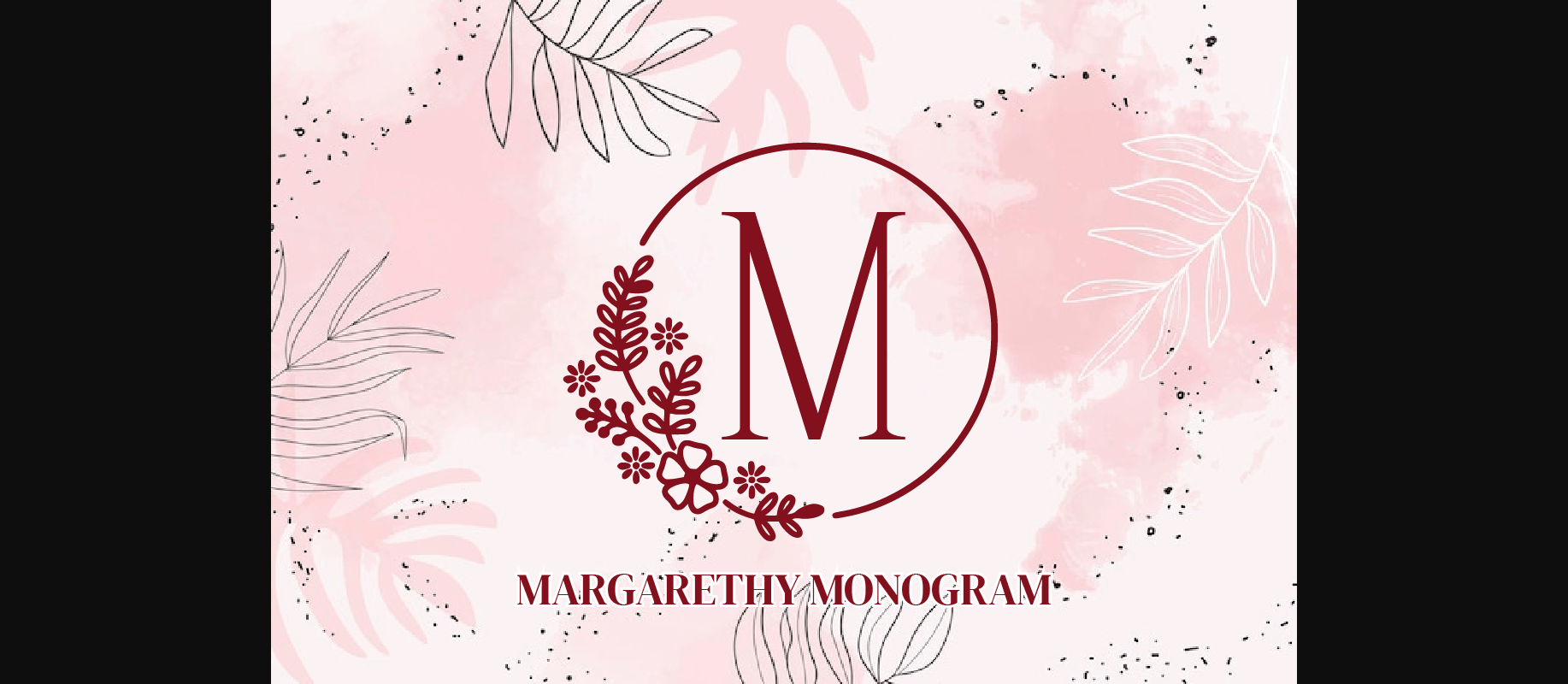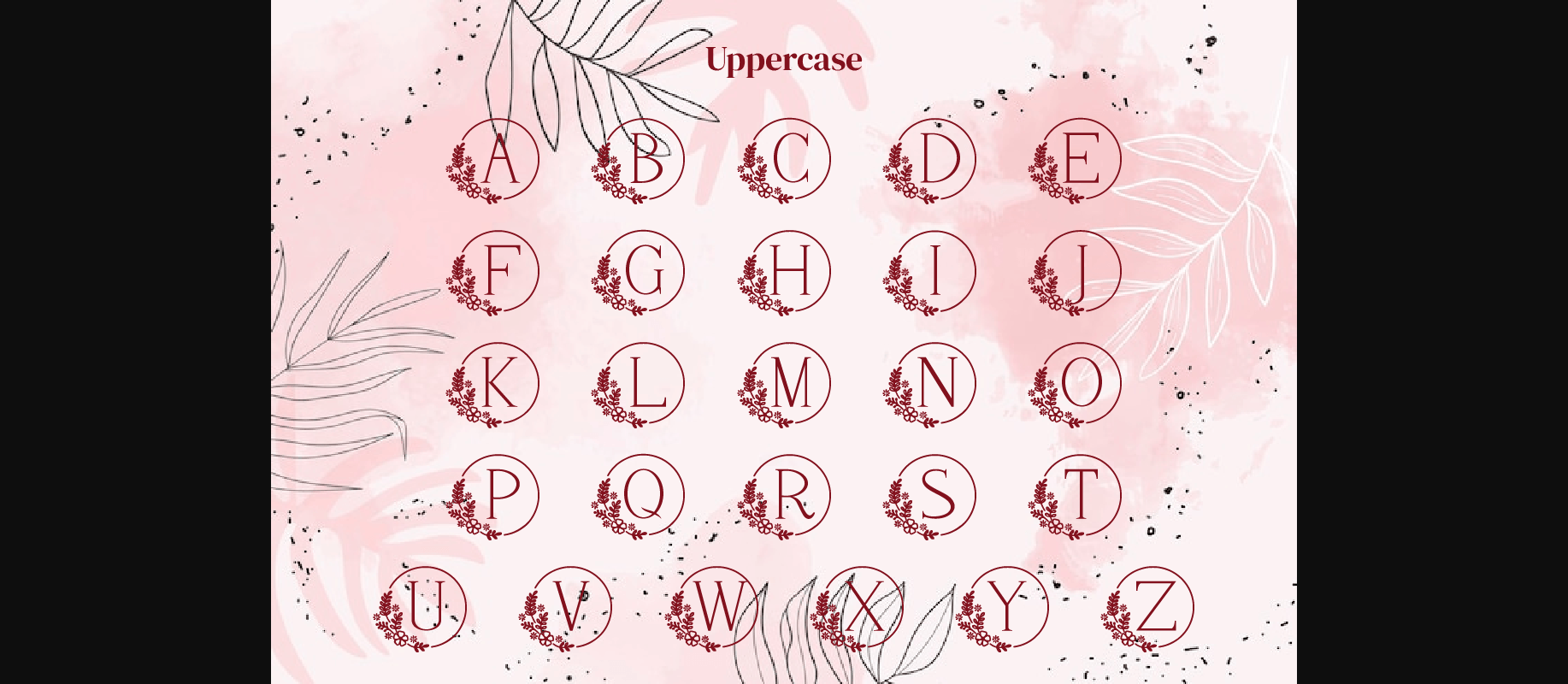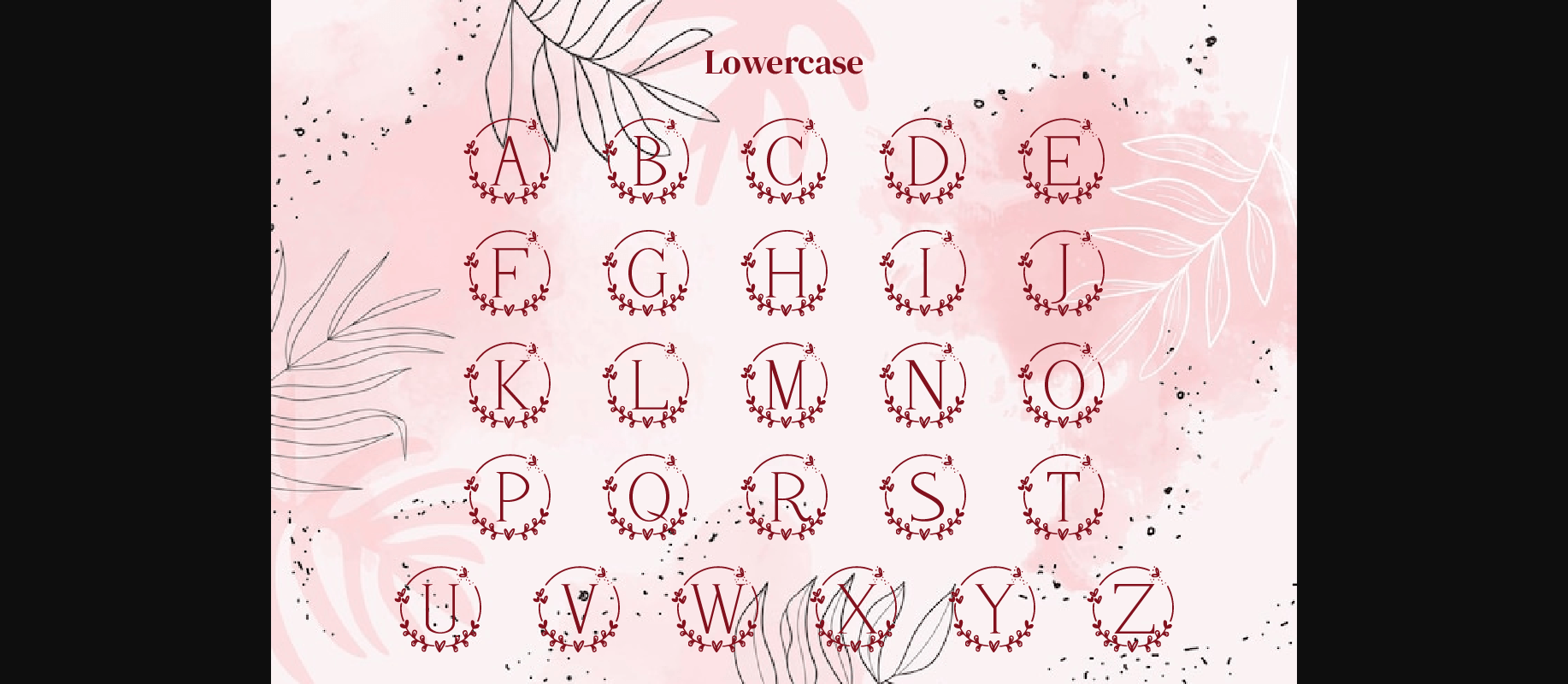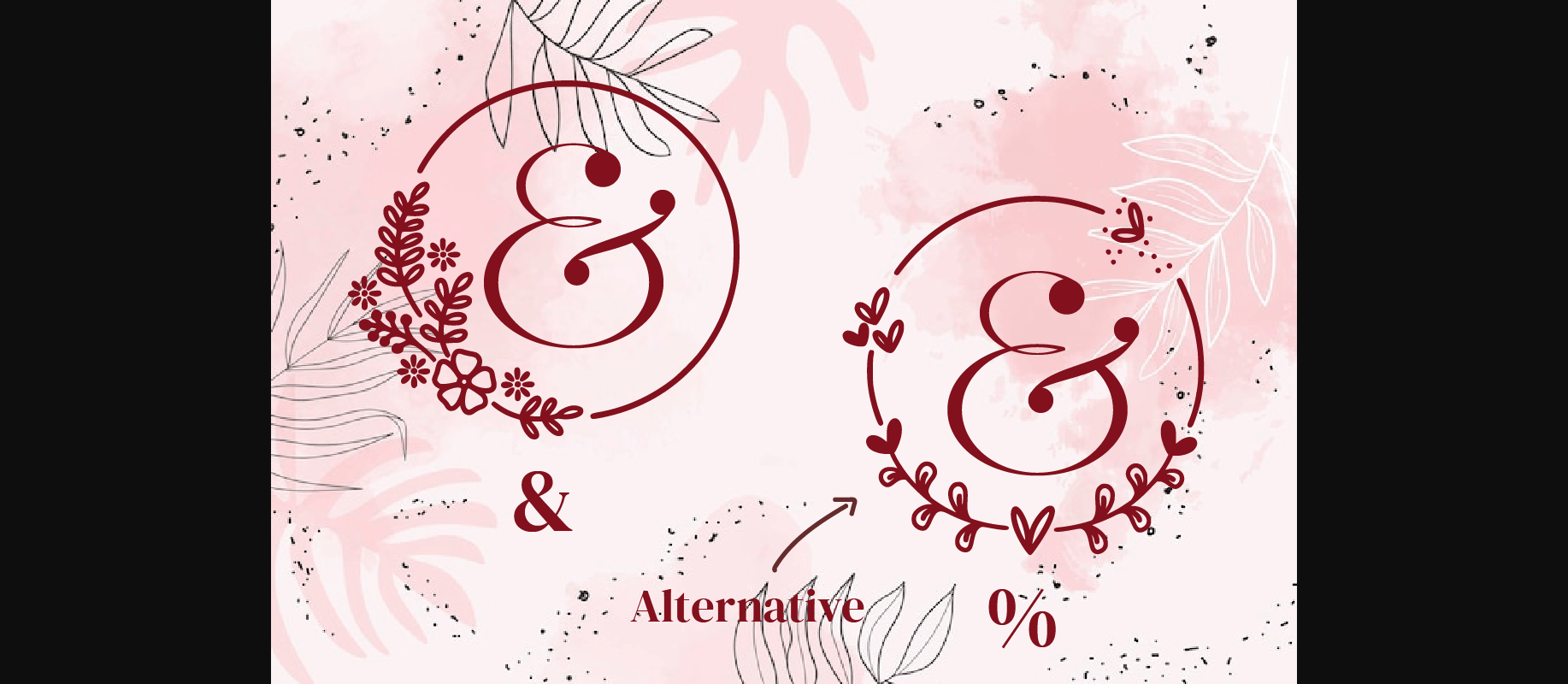
Margarethy is a wedding circle monogram font with a stylish touch inspired by the brides’ bouquets. Add this lovely decorative font to each of your creations and notice how they become true pieces of art!